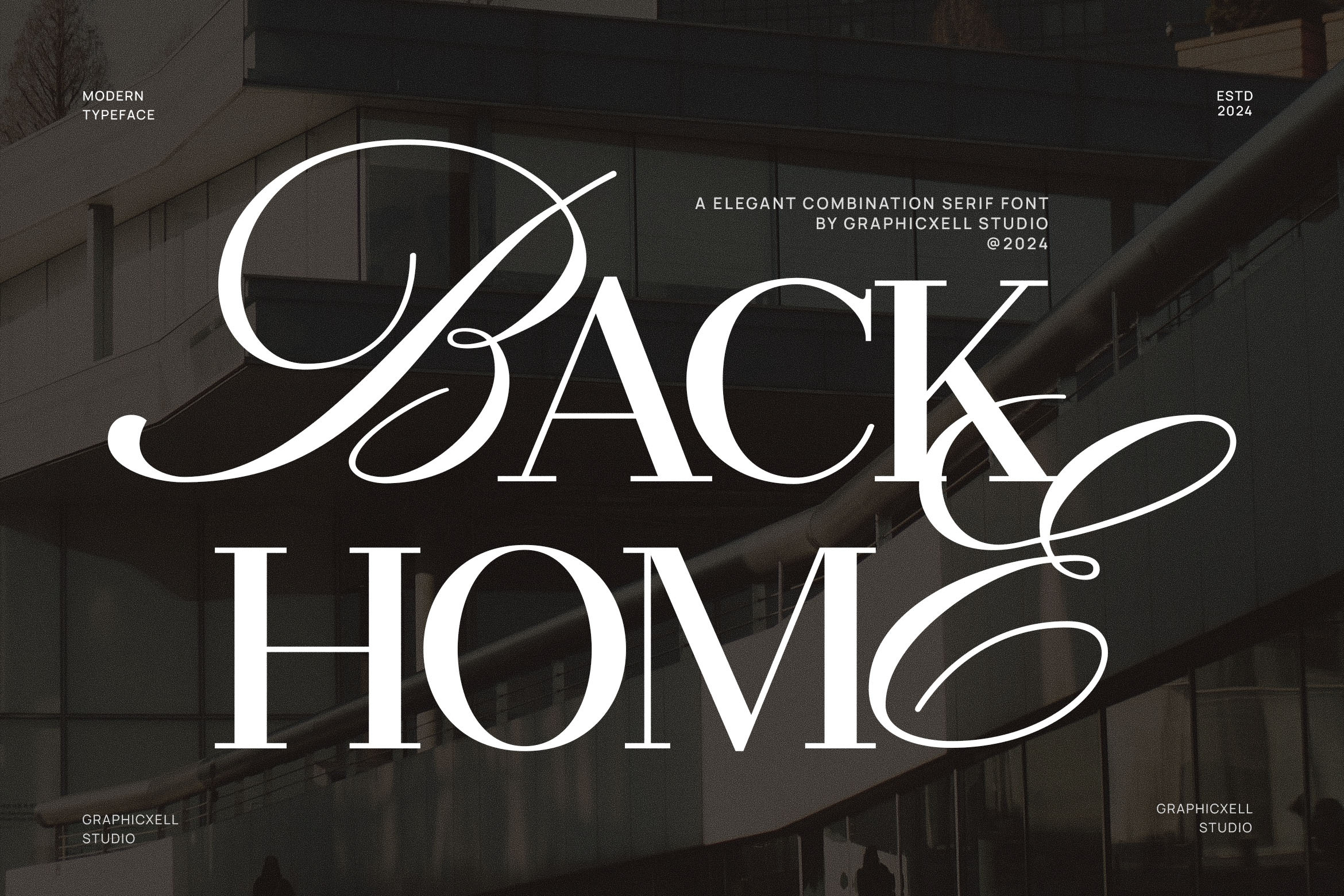
Back Home Serif and Calligraphy Font
Back Home Serif and Calligraphy Font is a unique and elegant font that adds a touch of sophistication to branding and logo designs. The swashes gracefully extend from certain letters, adding a sense of movement and flow to the text. They can be used to emphasize specific letters or to add decorative elements to the overall design. The ligatures are meticulously crafted to create seamless connections between letters, enhancing the overall aesthetic of the font. With its elegant serif style, this font is perfect for a wide range of projects, including branding, logos, wedding designs, social media posts, advertisements, product packaging, product designs, labels, photography, watermarks, invitations, stationery, and more. Its high level of readability ensures that your message is conveyed clearly and effectively, making it a versatile choice for various design needs. Whether you're creating a brand identity or designing a wedding invitation, Back Home Serif and Calligraphy Font offers the perfect blend of elegance and style. Its timeless appeal makes it suitable for both traditional and contemporary designs, while its high level of readability ensures that your message is always clear and easy to read. Additionally, this font's versatility allows it to be used across different mediums, from print to digital, making it a valuable asset for any design project.